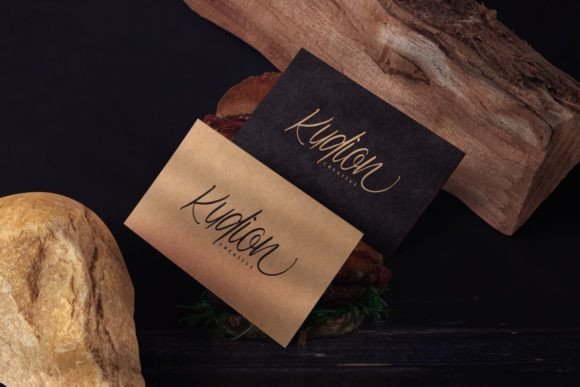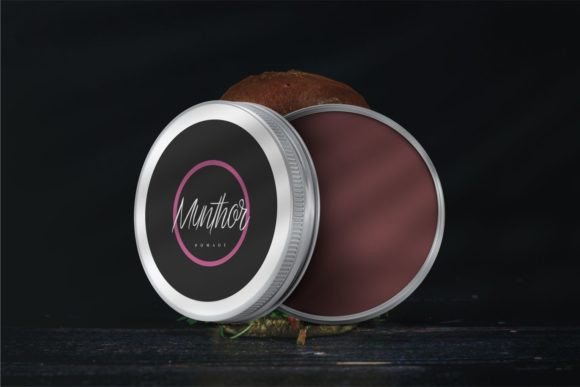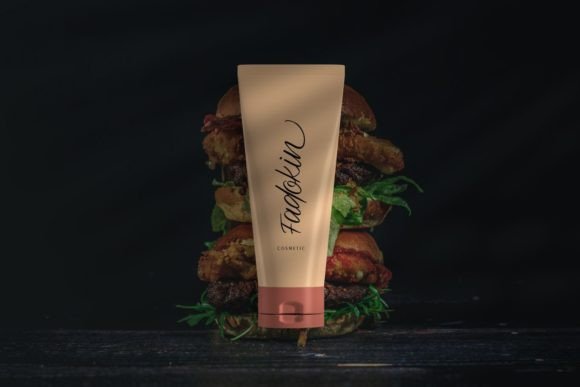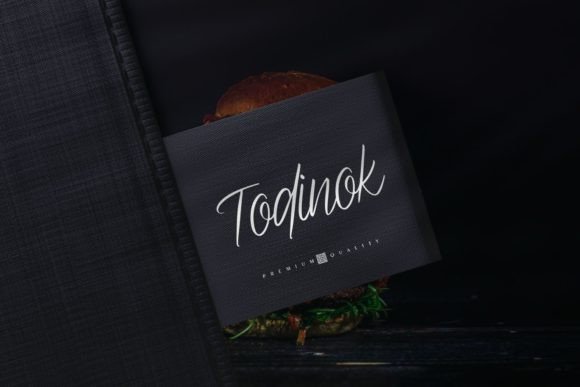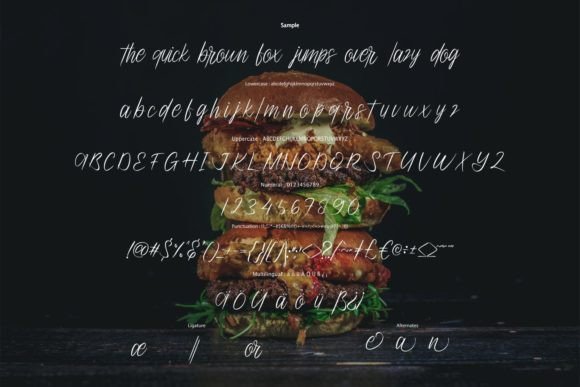
Introduction to Justoria Font
Remember the moment when you stumbled upon the perfect font for your creative project? The one that gave it that extra oomph, elevating it from ordinary to extraordinary? For designers, finding the right font can be a game-changer, and we’re excited to introduce you to Justoria Font – a beautiful and light handwritten font that’s sure to add a touch of luxury to your design.
With its unique feel and stunning impact, Justoria Font is a valuable resource for designers looking to create high-quality designs that stand out from the crowd. Whether you’re working on a branding project, a wedding invitation, or a blog post, this font is sure to add a creative spark that will leave a lasting impression.
- Unique characteristics include elegant script and cursive styles, perfect for adding a touch of sophistication to any design project.
- Designed to be versatile and adaptable, making it an excellent choice for a wide range of creative projects, from invitations to logos.
Honest Review: Justoria Font
I recently stumbled upon the Justoria Font, and I must say it’s a lovely addition to any design resource. As a designer, I’m always on the lookout for high-quality fonts that can elevate my creative project. The Justoria Font definitely delivers on that front.
- ✨ Elegant and sophisticated design: The Justoria Font has a beautiful, elegant design that’s perfect for any project that requires a touch of sophistication.
- ✨ High-quality graphics: The font is crisp and clean, with no pixelation or blurriness – even at large sizes.
However, there are a few limitations to consider: ⚠️ Limited character set: The Justoria Font has a relatively small character set, which may not be suitable for projects that require a wide range of special characters.
Overall, I’m impressed with the Justoria Font. It’s a great choice for designers who want a high-quality, elegant font for their creative project. While it may not be perfect, it’s definitely worth considering as a design resource. Plus, it’s free to download, which is a definite bonus!
The Justoria Font is a high-quality design resource ideal for any creative project. With its clean and elegant design, this font is perfect for adding a touch of sophistication to your work.
The Justoria Font is ideal for a variety of design projects, including: